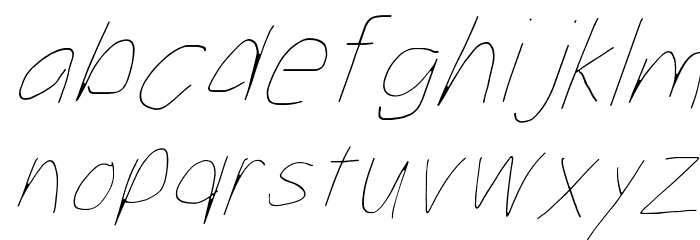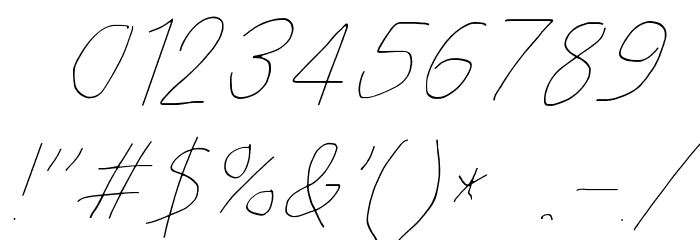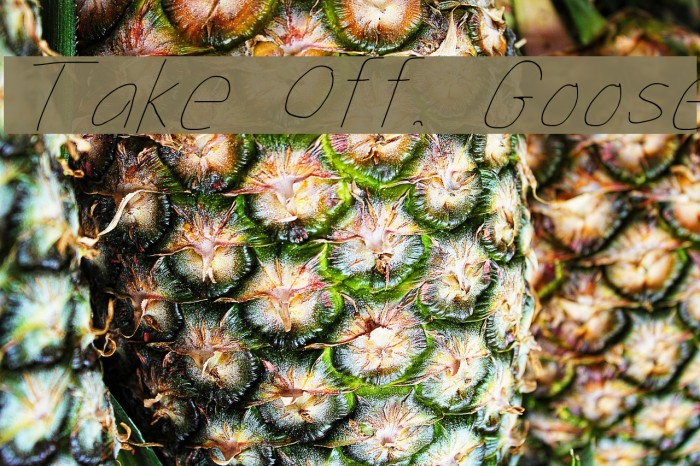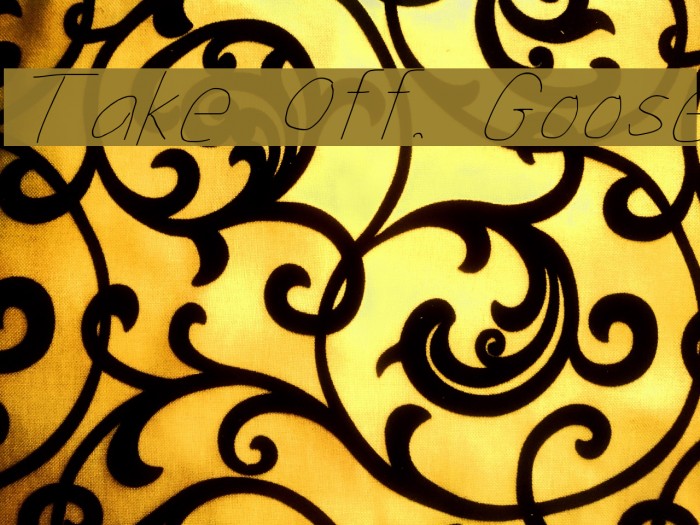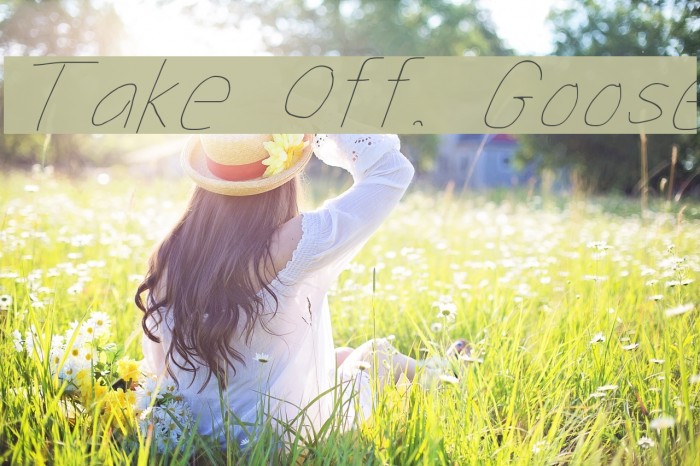
Take Off, Goose Font
This font features a handwritten style with a casual and flowing appearance. The characters are slightly slanted, giving it a dynamic and informal look. The strokes are thin and consistent, with a smooth, continuous flow that mimics natural handwriting. The uppercase and lowercase letters maintain a cohesive style, while the numerals and special characters blend seamlessly into the overall design. This font is ideal for projects that require a personal touch, such as invitations, greeting cards, or creative branding materials.
A casual, handwritten font with a smooth, flowing style.
- Proposed Projects: Ideal for invitations, greeting cards, personal branding, and creative projects.
- Overall Style: Casual
- Use Case: Headlines, Creative projects